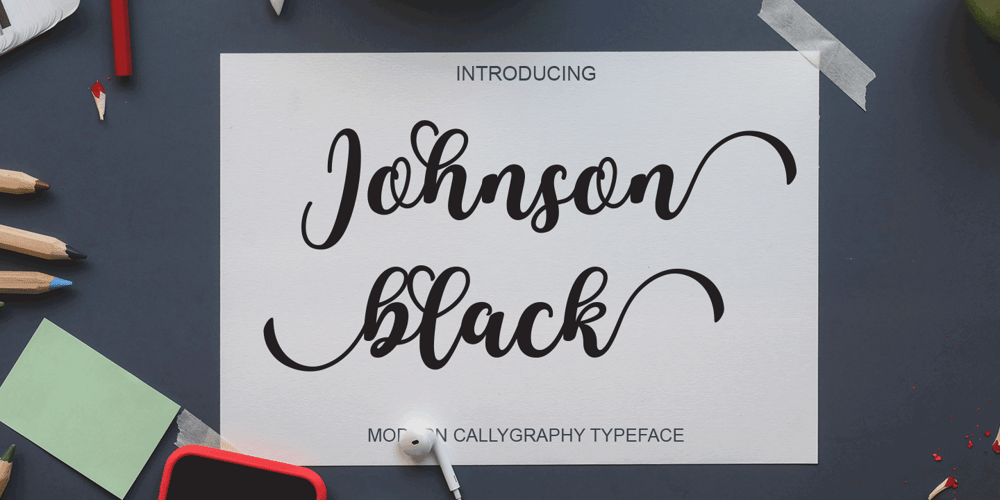
Johnson Black Font Family was designed by Marwah and published by BBA Key. Johnson Black contains 2 styles and family package options. Jonhson Black Script New fresh & modern style with handmade calligraphy, decorative characters and dancing lineage! It’s so wonderful for invitations, greeting cards, branding material, business cards, quotes, posters, and more.Jonhson Black Script comes with 330 glyphs. Alternate characters are divided into several OpenType features such as Swash, Stylistic Sets, Stylistic Alternate, Contextual Alternate. OpenType features are accessible by using OpenType savvy programs such as Adobe Illustrator, Adobe InDesign, Adobe Photoshop Corel Draw X versions, and Microsoft Word. And this font has code PUA unicode (font with special code), so that all alternative characters can be easily accessed by craftsmen or designers.